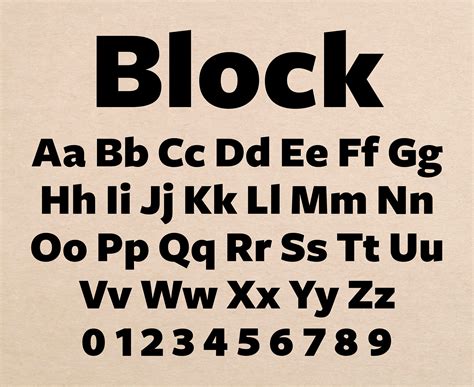
What Are Block Letters Fonts?
Block letters fonts are an interesting way to add some style and personality to any text. Block letters are a type of font, much like the classic serif or sans-serif fonts. They are a set of characters that have a particular shape and size. The characters are usually composed of thick lines and have a very bold, geometric appearance.
Block letters have been a popular font choice for many years, and are often used for titles and headlines, as well as for logos and branding. Block letters are often used to create a sense of authority in a design, and can be used to create a striking visual impact. They can also be used to create a sense of drama or suspense in a design.
History of Block Letters
Block letters have a long history, with the earliest examples dating back to ancient Egypt. Block letters were used in hieroglyphic inscriptions, and were also used in ancient Greek and Roman inscriptions. The ancient Greeks and Romans used block letters to create stunningly beautiful inscriptions, and these inscriptions still stand as some of the most impressive examples of ancient art.
Block letters were also used in the Middle Ages, especially in religious manuscripts. Block letters were used to create stunningly beautiful calligraphy, and were used to create illuminated manuscripts. In the modern era, block letters are still used in a variety of ways, from logos to titles and headlines.
Examples of Block Letters Fonts
There are many examples of block letters fonts available today. Some of the most popular block letters fonts include Arial, Times New Roman, and Helvetica. Each of these fonts has its own unique characteristics, and can be used to create a wide variety of designs. Other examples of block letters fonts include Impact, Futura, and Gotham.
Block letters fonts can be used to create a range of designs, from sophisticated logos to bold headlines. Block letters can also be used to create a sense of authority or drama in a design. In the modern era, block letters fonts are often used in web design, and are used to create bold headlines or titles.
Uses of Block Letters Fonts
Block letters fonts are used in a variety of ways, from logos to headlines and titles. They are often used to create a sense of authority or drama in a design. Block letters fonts can also be used to create a sense of movement or energy in a design. They are often used in web design to create bold headlines or titles.
Block letters fonts can also be used to create stunningly beautiful logos and branding. They are often used to create a sense of style or sophistication in a design. Block letters fonts can also be used to create a sense of drama or suspense in a design.
Block letters fonts are a type of font that have a bold, geometric appearance. They have a long history, and were used in ancient Egypt, Greece, and Rome. Block letters fonts can be used to create a range of designs, from logos to titles and headlines. They are often used to create a sense of authority or drama in a design. Block letters fonts can also be used to create stunningly beautiful logos and branding.